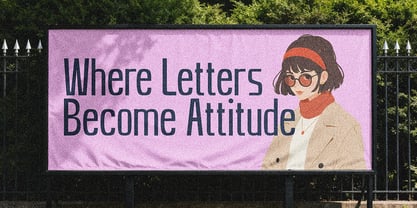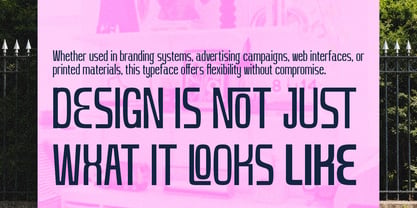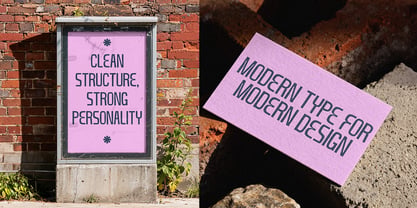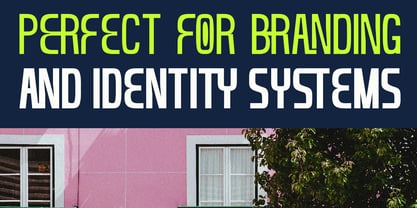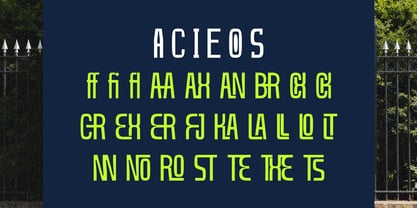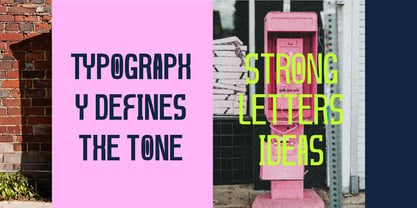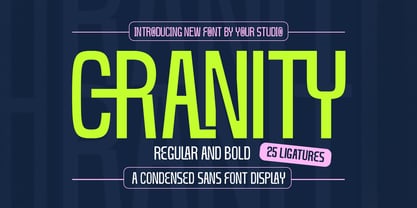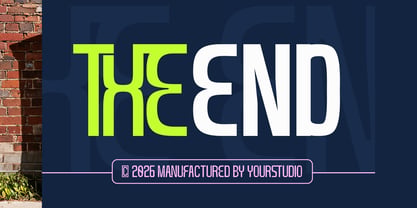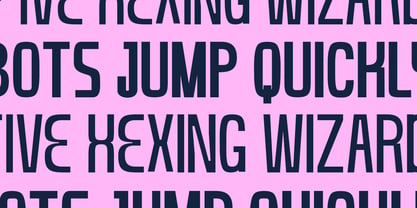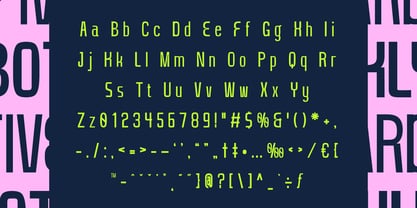
Cranity
by Afkari Studio
The Cranity Font Family was designed by Musthafa Kamal Emje and published by Afkari Studio. Cranity contains 2 styles and family package options. More about this family
Cranity is a modern condensed sans serif display font crafted to deliver strong, clean, and professional typography for contemporary creative projects. With its narrow proportions and bold letterforms, this font maximizes visual impact while maintaining excellent readability. Designed for designers who need efficient yet stylish typography, Cranity is perfect for headlines, branding, posters, and modern layout designs where space efficiency and strong presence are equally important. Its minimalist and modern style allows it to work seamlessly across both digital and print media, making it suitable for branding, editorial layouts, advertising, and promotional materials. Whether you're designing logos, posters, packaging, or marketing campaigns, Cranity ensures your typography stands out with a bold and modern condensed look. Features; - Uppercase, Lowercase, Number, and Punctuation - Special Alternates and ligatures - Works on PC & Mac, Simple installations - Accessible in Adobe Illustrator, Adobe Photoshop, Adobe InDesign, and even work on Microsoft Word - PUA Encoded Characters – Fully accessible without additional design software. - Mültîlíñgúãl Sùppört for; ä ö ü Ä Ö Ü ß ¿ ¡ Whether you're creating bold branding, modern posters, or impactful promotional materials, Cranity helps your design stand out with clarity and strong personality. Add a sleek and contemporary touch to your next creative project with this condensed sans serif display typeface.
Designers: Musthafa Kamal Emje
Foundry: Afkari Studio